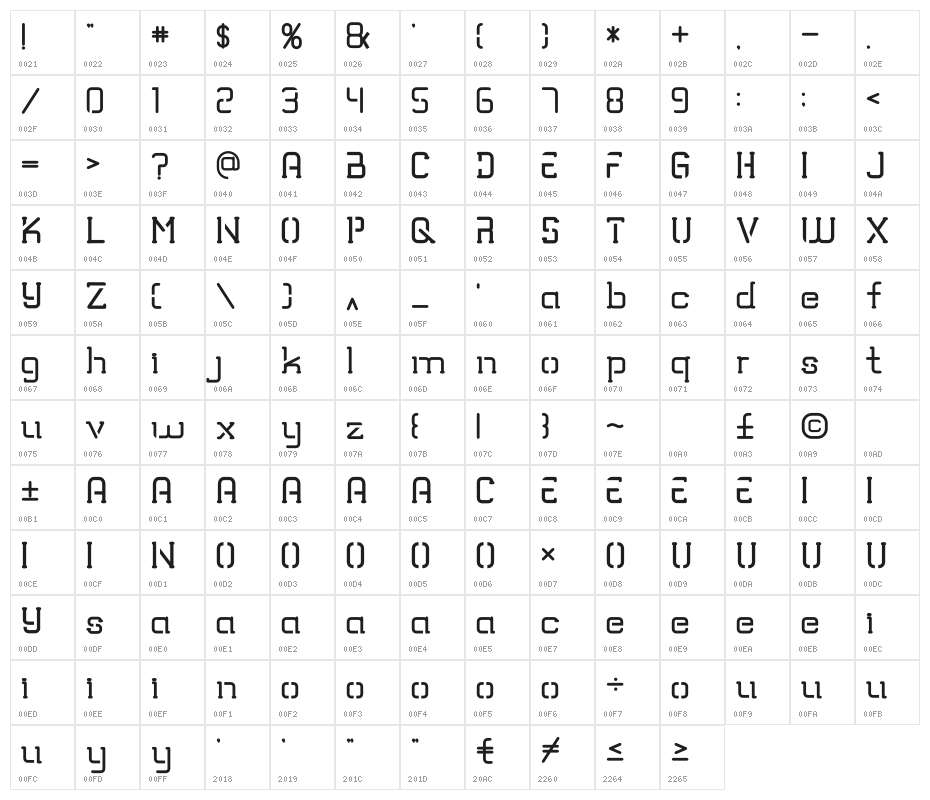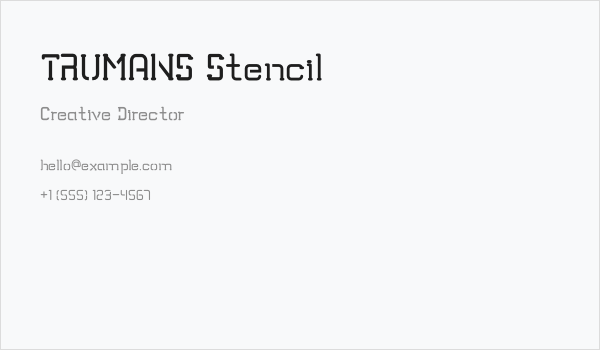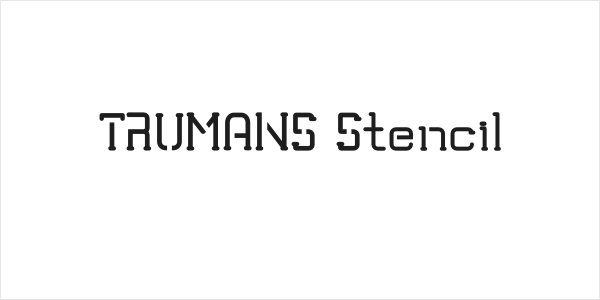
TRUMANS Stencil Font
TRUMANS Stencil Description
This font features a distinctive stencil design, characterized by its bold, geometric shapes and clean, angular lines. The uppercase letters are particularly striking, with cut-out sections that create a modern, industrial feel. The lowercase letters maintain a similar style, offering a cohesive look across both cases. Numbers and special characters are crafted with the same attention to detail, ensuring consistency throughout. The font's unique style makes it stand out, while its readability ensures it remains functional for various applications. The spacing between characters is balanced, providing a clear and organized appearance.
| Use Case | Headlines, Logos, Signage |
| Proposed Projects | Ideal for branding, signage, posters, and any project requiring a modern, industrial look. |